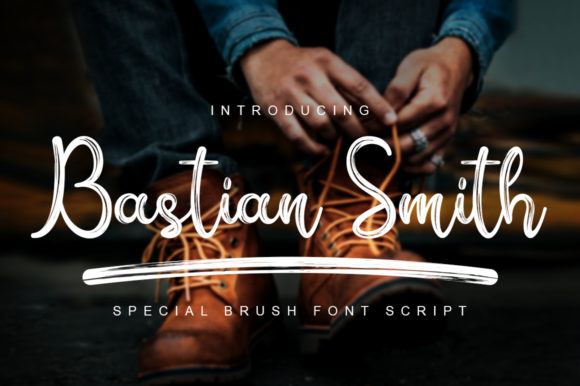
Immerse yourself in the world of Bastian Smith, a brushed script font that captivates with its enchanting characters and exudes an aura of romance. Each letter dances across the page, carrying a story of love and longing. Whether you're crafting a passionate love letter, designing a heartfelt wedding invitation, or creating a whimsical brand identity, Bastian Smith promises to elevate your words with grace and charm.
With its elegant strokes and playful curves, Bastian Smith embodies the essence of modern calligraphy. Its delicate lines flow effortlessly, evoking a sense of intimacy and authenticity. This font is a true artist's delight, inviting you to explore endless creative possibilities.
Dive into the depths of your imagination and unleash your storytelling prowess. Allow Bastian Smith to serenade your readers with its captivating charm. From heartfelt personal messages to captivating marketing campaigns, this font promises to leave a lasting impression.
Let Bastian Smith be your muse, guiding you to create designs that resonate with your audience. Its versatility knows no bounds, adapting seamlessly to a wide range of projects, from social media graphics and website designs to logos and branding.
With Bastian Smith as your creative companion, you'll discover a world of enchanting possibilities. Its beauty and elegance will elevate your designs, taking them to new heights of sophistication and charm.